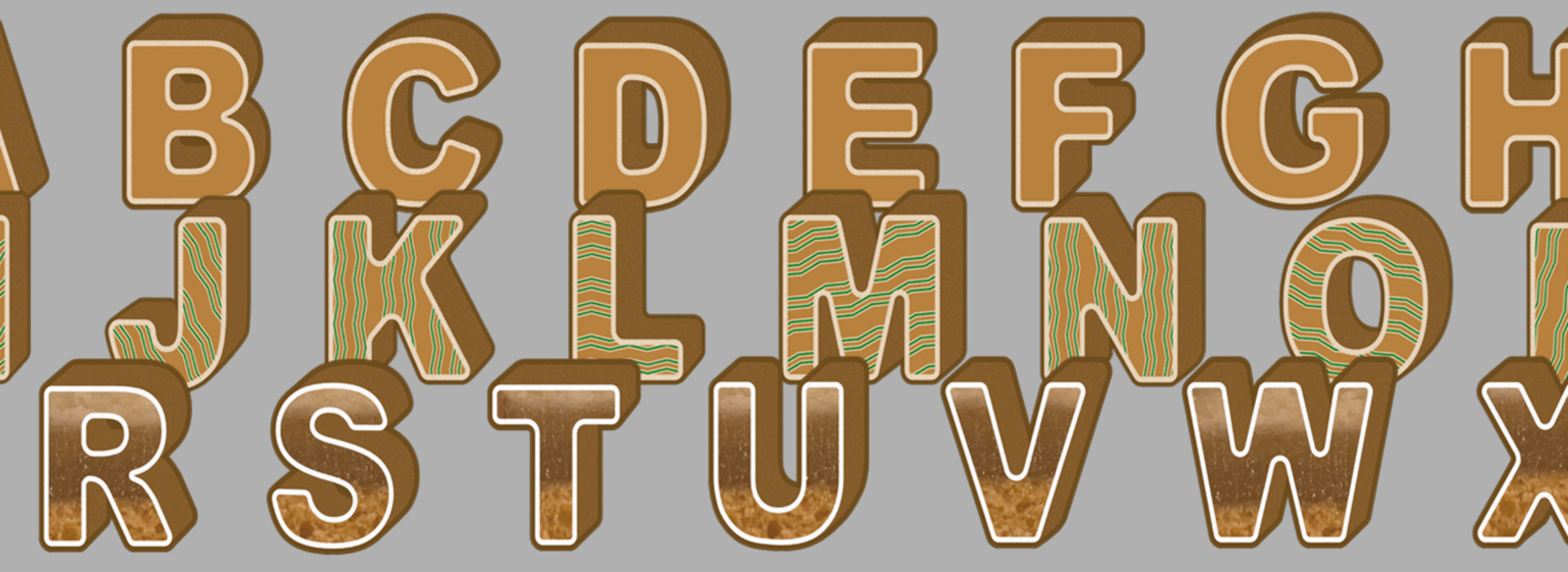
3 VECTORISED COOKIE FONTS
The asset TASHIRO COOKIE FONTS consist of:
- 26 vectorised capital letters in Gingerbread look (no ä, ö, ü and no special characters)
- 26 vectorised capital letters in Gingerbread look with green sugar pattern (no ä, ö, ü and no special characters)
- 26 vectorised capital letters in Domino sweets look (no ä, ö, ü and no special characters)
- 78 vectorised characters total
This font can be used as headlines, graphic text elements and also for typographical posters.